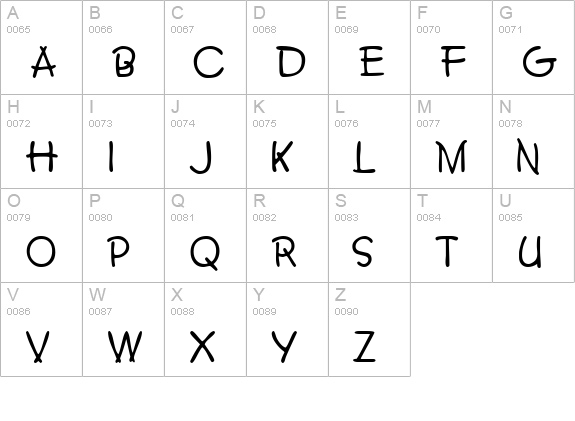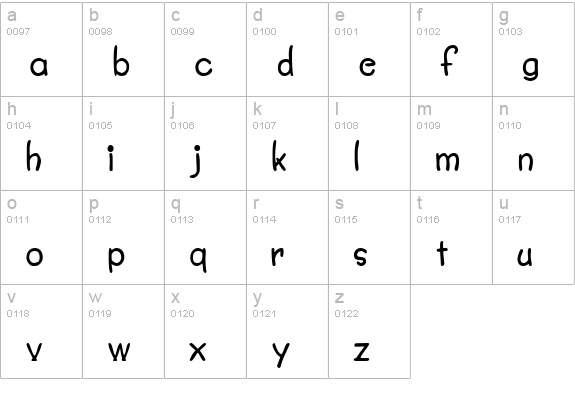
BoyzClubSSK Font Details
BoyzClubSSK is a stylish and modern font that exudes a cool and casual vibe perfect for any project that needs a touch of youthfulness. With its unique mix of playful curves and sharp edges, this font stands out and is sure to capture attention. The bold and dynamic look of BoyzClubSSK makes it ideal for headlines, logos, posters, and more. The best part? BoyzClubSSK is completely free to download at FontsMarket.com! Yes, you read that right - this eye-catching font can be yours at no cost, allowing you to add a fresh and trendy flair to your designs without breaking the bank. Don't miss out on the opportunity to enhance your projects with the free-spirited charm of BoyzClubSSK font. Download it now and let your creativity shine!